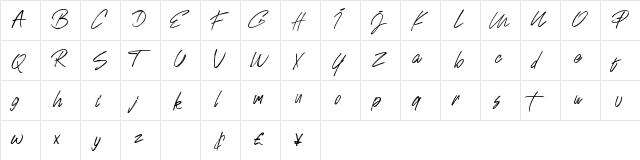
Johnson Rock Regular
| Designer | Letterara 2019 |
Design Context for Johnson Rock Typeface
Johnson Rock is a composed and adaptable typeface that performs quietly and consistently across a wide range of design contexts.